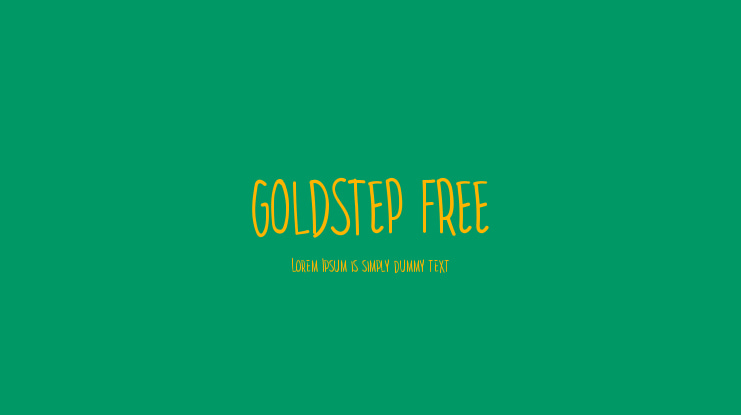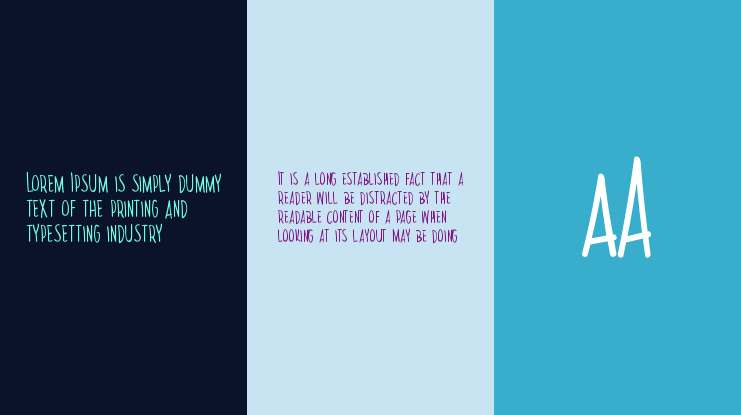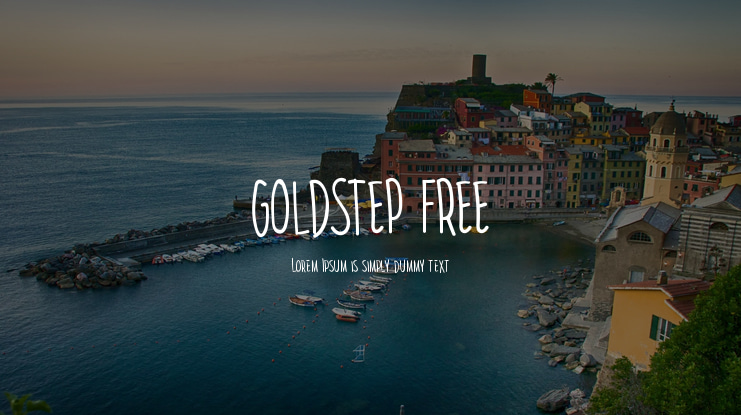
GOLDSTEP FREE Font
"Goldstep" is a font display is made by hand, inspired by classic posters.
comes with uppercase, lowercase, numerals, punctuations and so many variations on each character include OpenType alternates, common ligatures and also additional swash to let you customize your designs. Perfect to use for Logotype, Letterhead, Poster, Apparel Design, Label and etc.